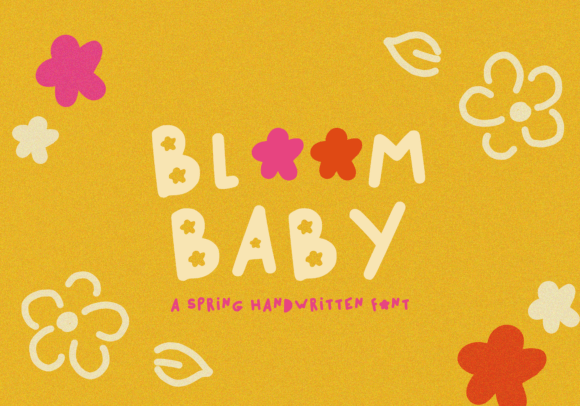
Spring into Design with the Bloom Baby Font
As the first signs of spring arrive, I find myself flipping through old scrapbooks and memory boxes, reminiscing about the carefree days of childhood. The smell of freshly cut grass and blooming flowers transports me to a world of simplicity and joy. It’s moments like these that inspire me to create, and today, I’m excited to share with you the perfect font to capture that essence: the Bloom Baby Font.
This delightful spring handwritten font is more than just a typeface – it’s an invitation to celebrate the beauty of new beginnings. With its soft, rounded letterforms and integrated flower motifs, the Bloom Baby Font radiates warmth and handcrafted charm, making it a valuable tool for designers looking to add a personal touch to their projects.
- Font Style: Hand-Drawn, Whimsical, and Playful
- Unique Characteristics: Delicate illustrations of flowers and leaves, perfect for children’s products and nursery designs
Bloom Baby Font Review
Overall, I was quite impressed with the Bloom Baby Font. The designer has put a lot of thought into creating a font that’s both aesthetically pleasing and functional. Here are some things that really stood out to me:
- ✨ Unique and playful style: The Bloom Baby Font has a distinct, hand-drawn feel that makes it perfect for children’s books, nursery decor, and other projects that need a touch of whimsy.
- ✨ Excellent legibility: Despite its playful style, the font is still easy to read, even at smaller sizes. This makes it a great choice for text-heavy projects.
- ✨ Wide character set: The font includes a wide range of characters, including punctuation, numbers, and international characters, making it a versatile choice for designers.
That being said, there are a few limitations to consider:
- ⚠️ Limited font weights: While the font includes a few different weights, it could benefit from a more comprehensive weight range to give designers more flexibility.
- ⚠️ Limited language support: While the font includes a wide range of characters, it may not include the specific characters or language support that designers need for certain projects.
Overall, I think the Bloom Baby Font is a great choice for designers who are looking for a unique and playful font that’s still easy to read and use. While it has some limitations, I think the benefits outweigh the drawbacks, and I’d definitely recommend it to designers who are looking for a font that’s a little bit different.
Getting the Most Out of Bloom Baby Font
For the best results, use Bloom Baby Font in conjunction with bright, pastel colors to create a playful and whimsical look.
Experiment with different font sizes and styles to add visual interest to your design.
Use Bloom Baby Font for baby-related designs, such as nursery decor, baby announcements, and children’s party invitations.
Bloom Baby Font is ideal for:
1. Baby announcements and invitations.
2. Nursery decor and wall art.
3. Children’s party invitations and decorations.
4. Baby shower decorations and gifts.
The Bloom Baby Font is designed to be scalable and supports a wide range of font sizes and resolutions. It is optimized for use at font sizes between 8pt and 72pt, and is suitable for use at resolutions up to 300 DPI.